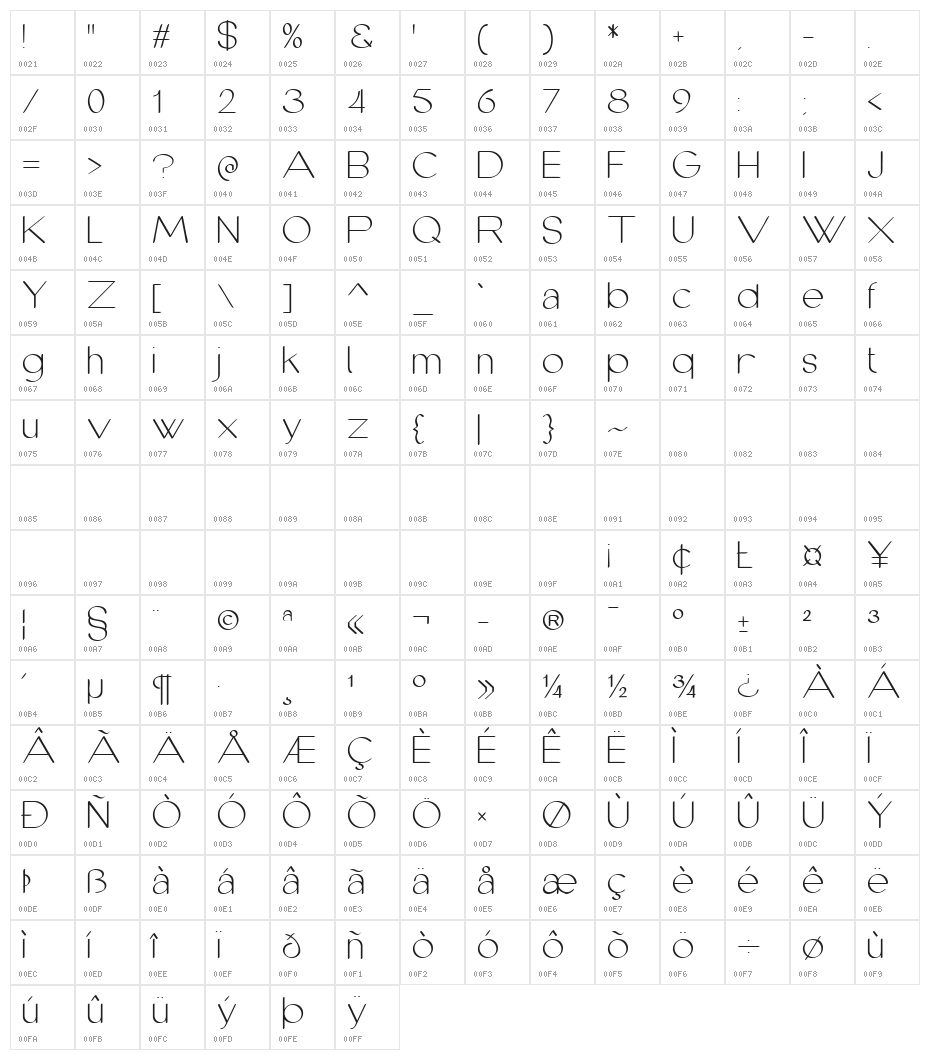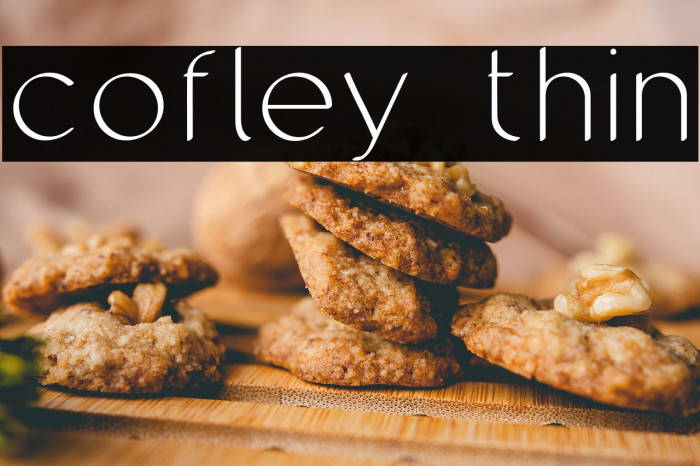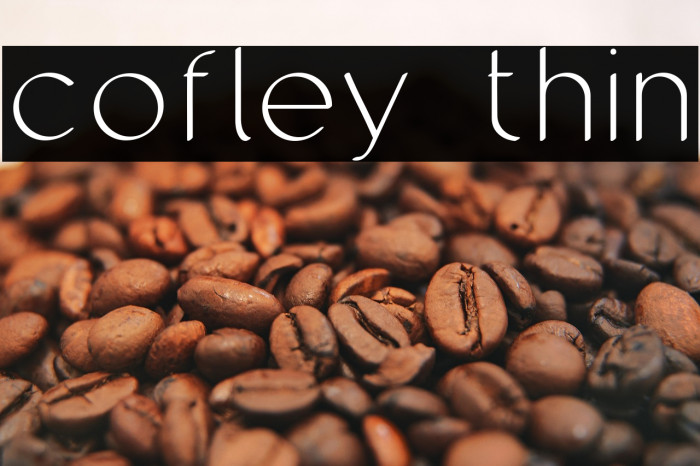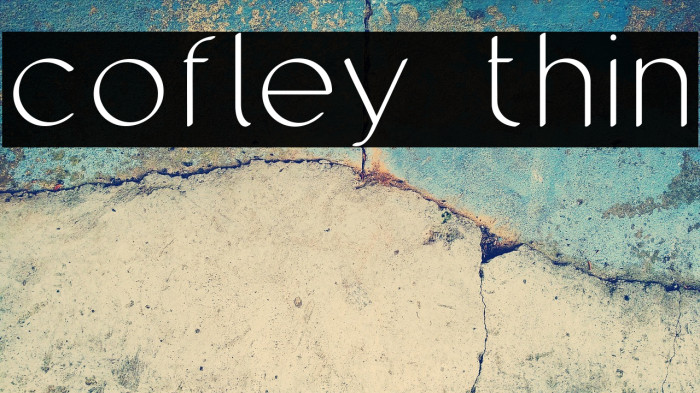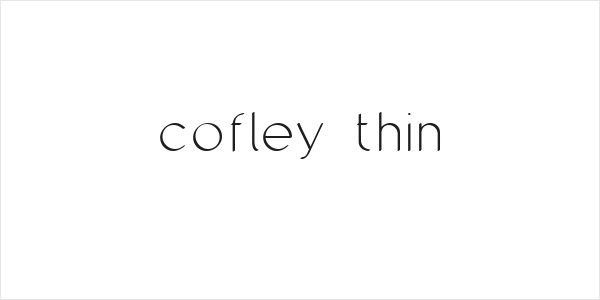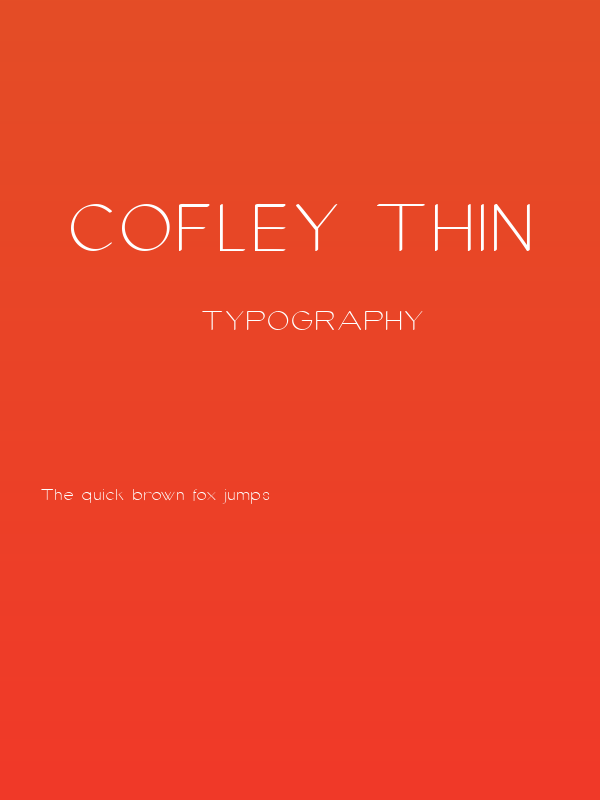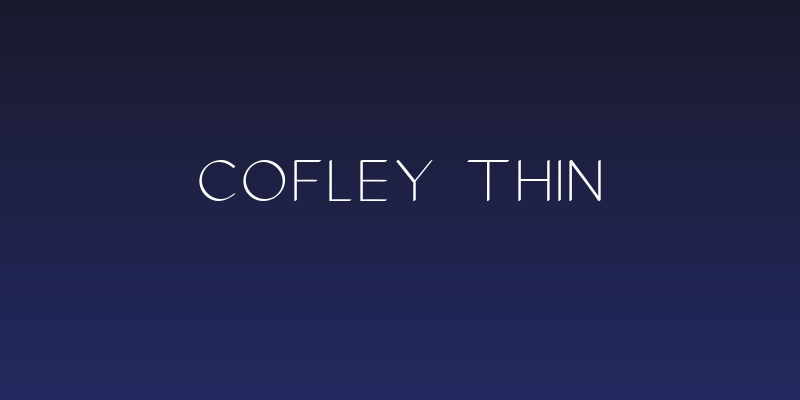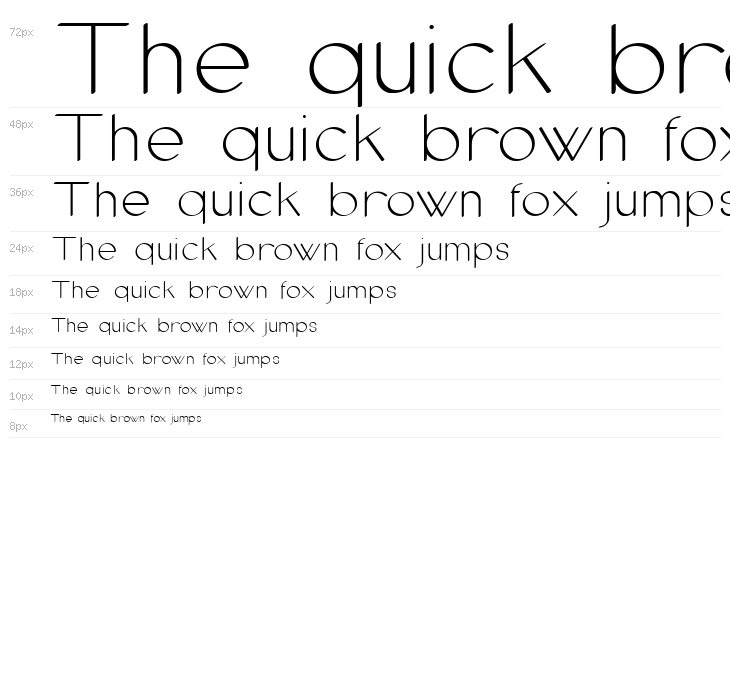
cofley thin Font
cofley thin Description
This font features a sleek and modern design with thin, elegant lines that create a minimalist aesthetic. The characters are well-proportioned, with a consistent stroke width that gives the font a clean and sophisticated look. The uppercase letters are tall and slightly narrow, while the lowercase letters maintain a harmonious balance with rounded forms. The numerals are clear and legible, making them suitable for various applications. Special characters are included, maintaining the same thin and refined style. Overall, this font exudes a sense of modernity and elegance, making it ideal for contemporary design projects.
| Use Case | Headlines, Body text, Logos |
| Proposed Projects | Ideal for branding, editorial design, websites, and minimalist graphic design projects. |